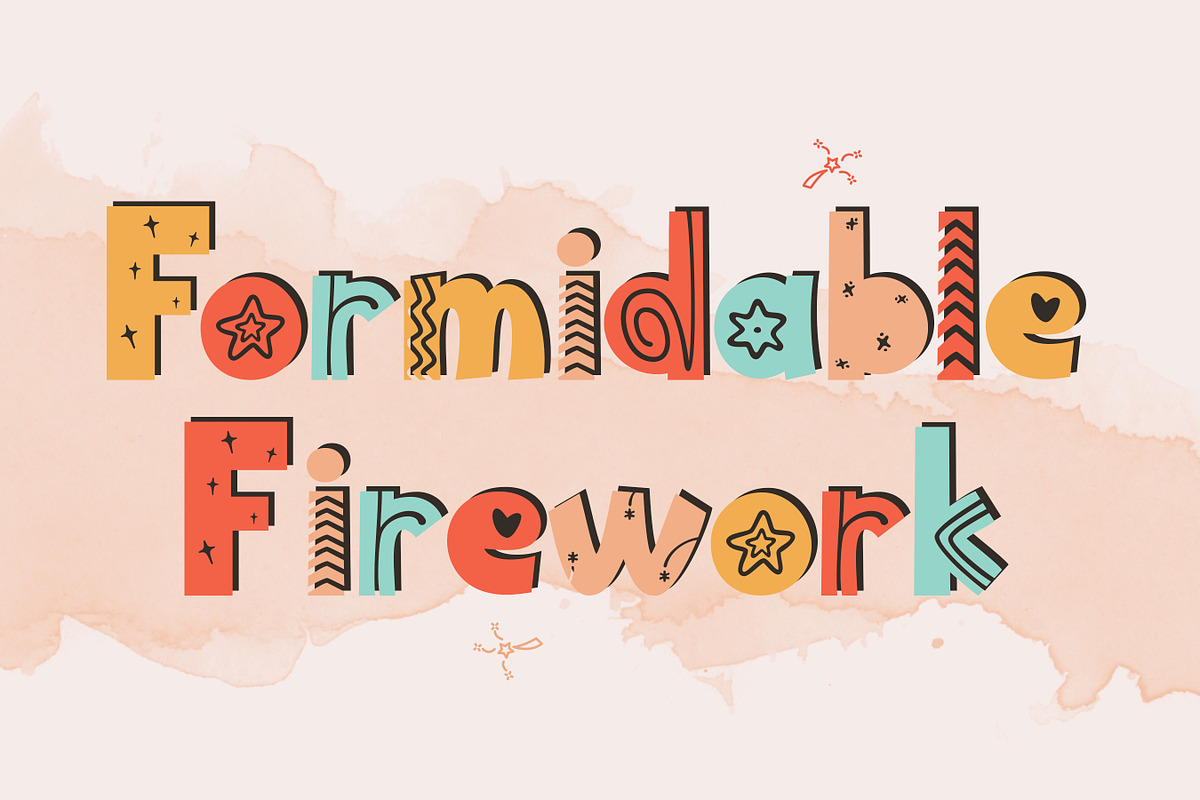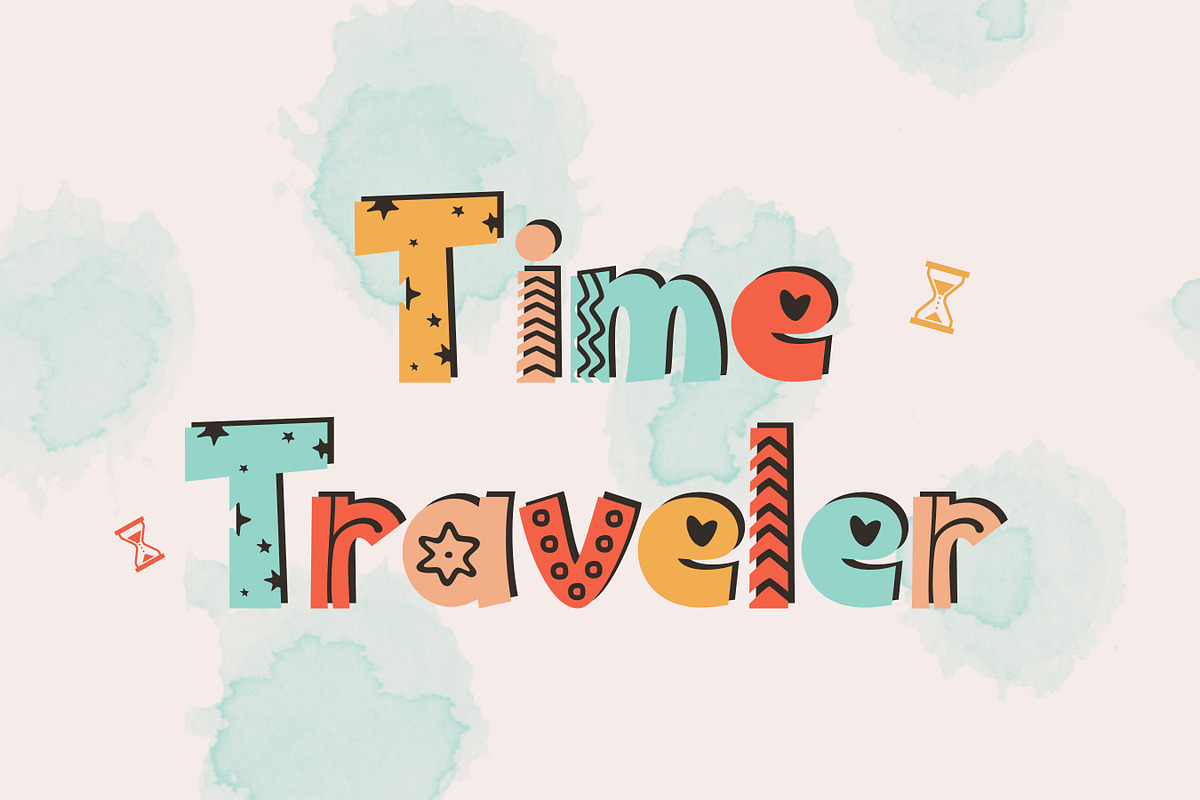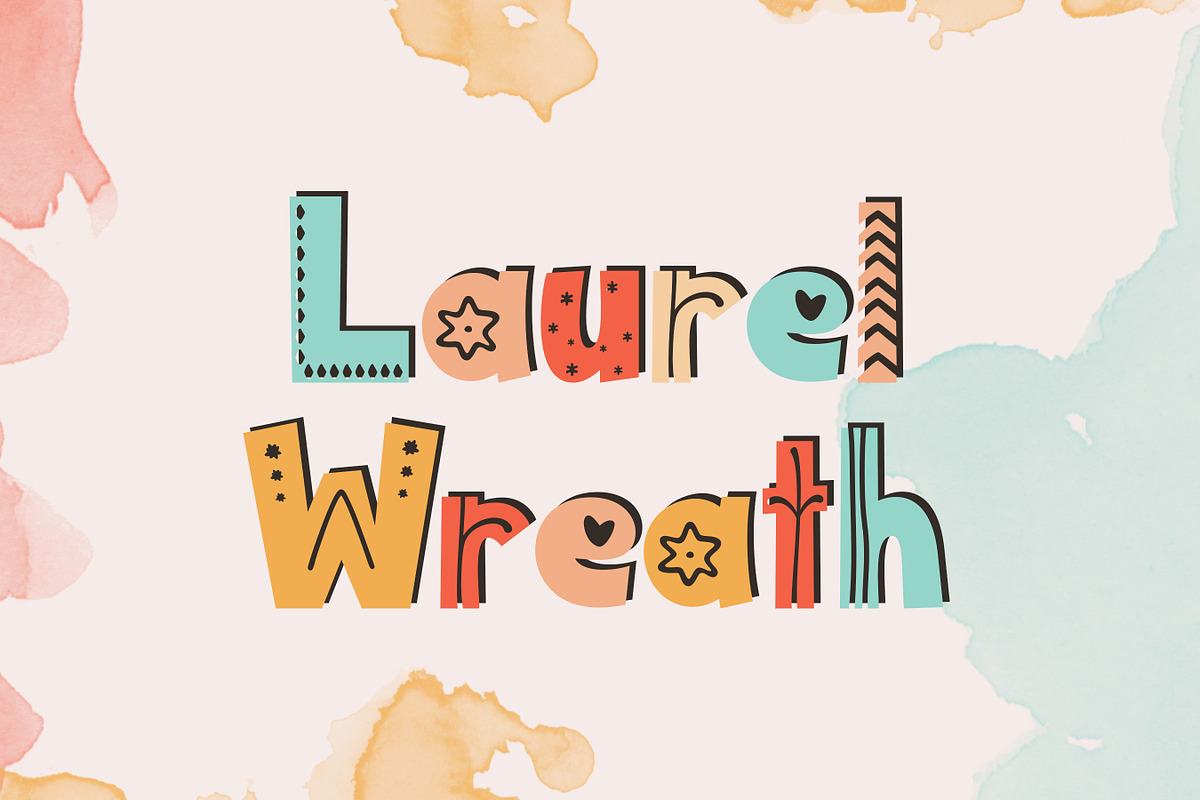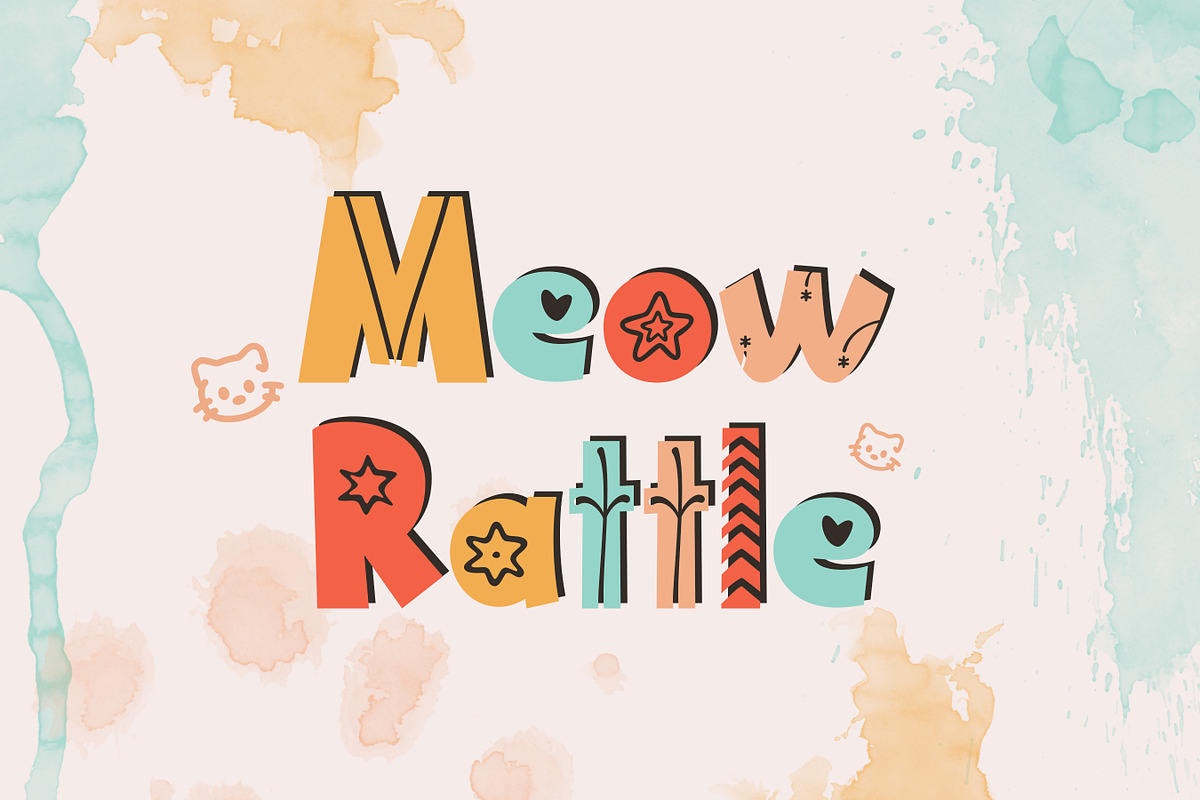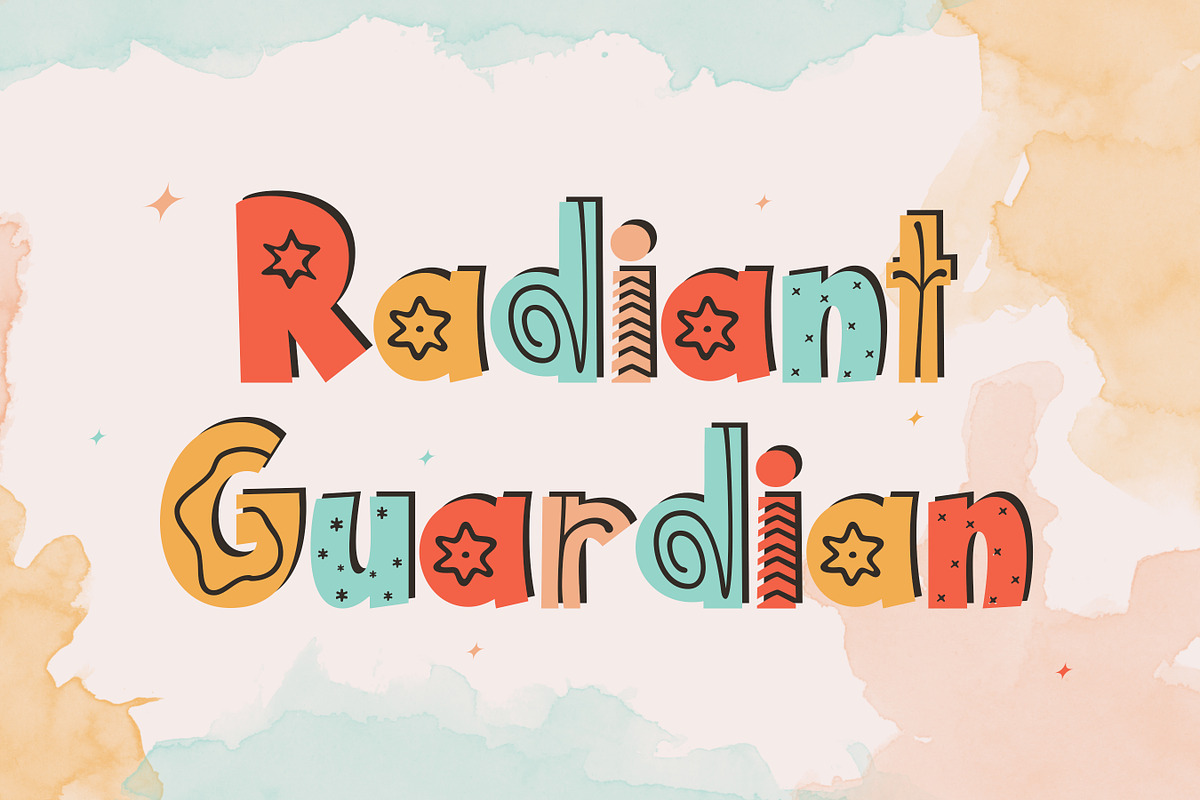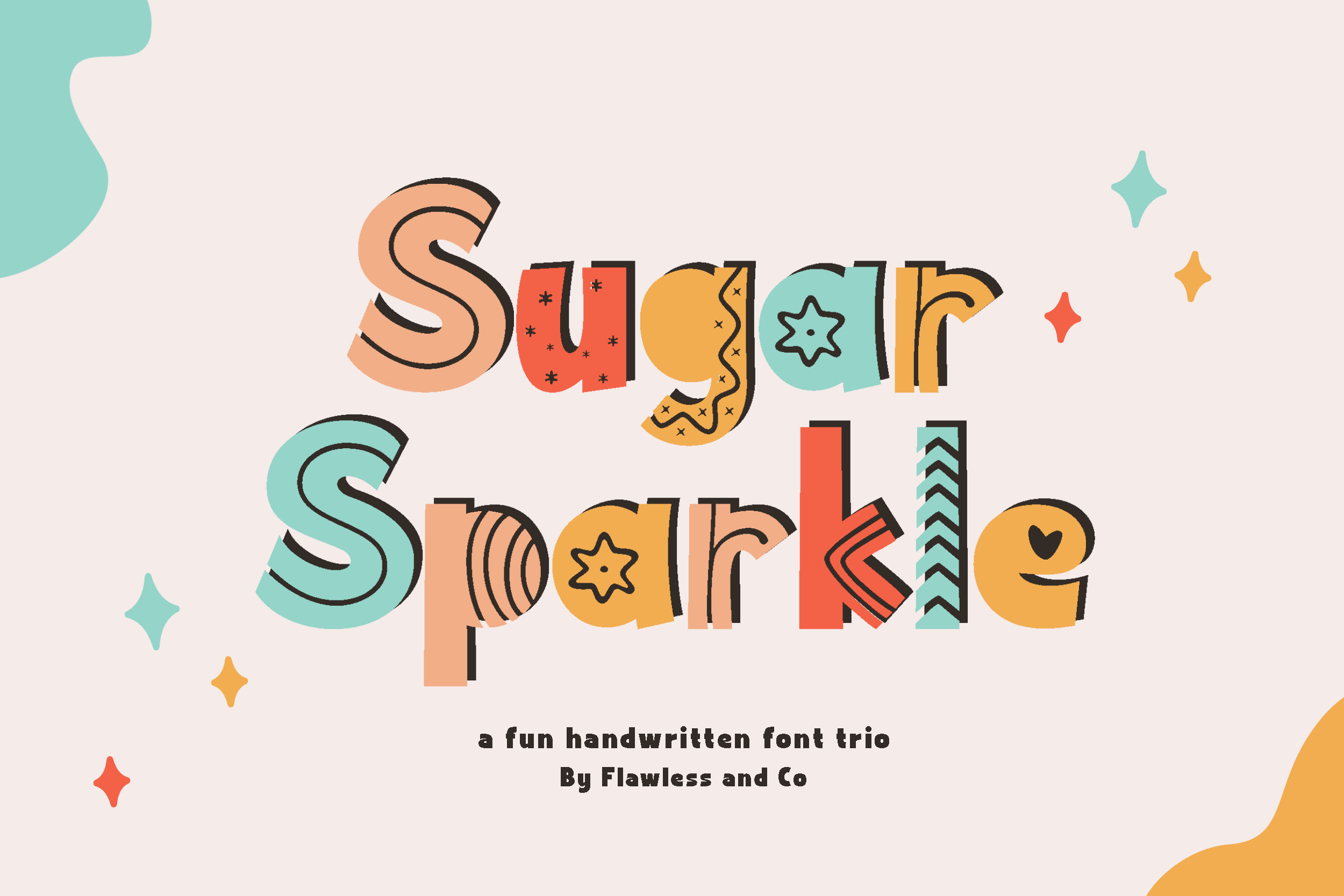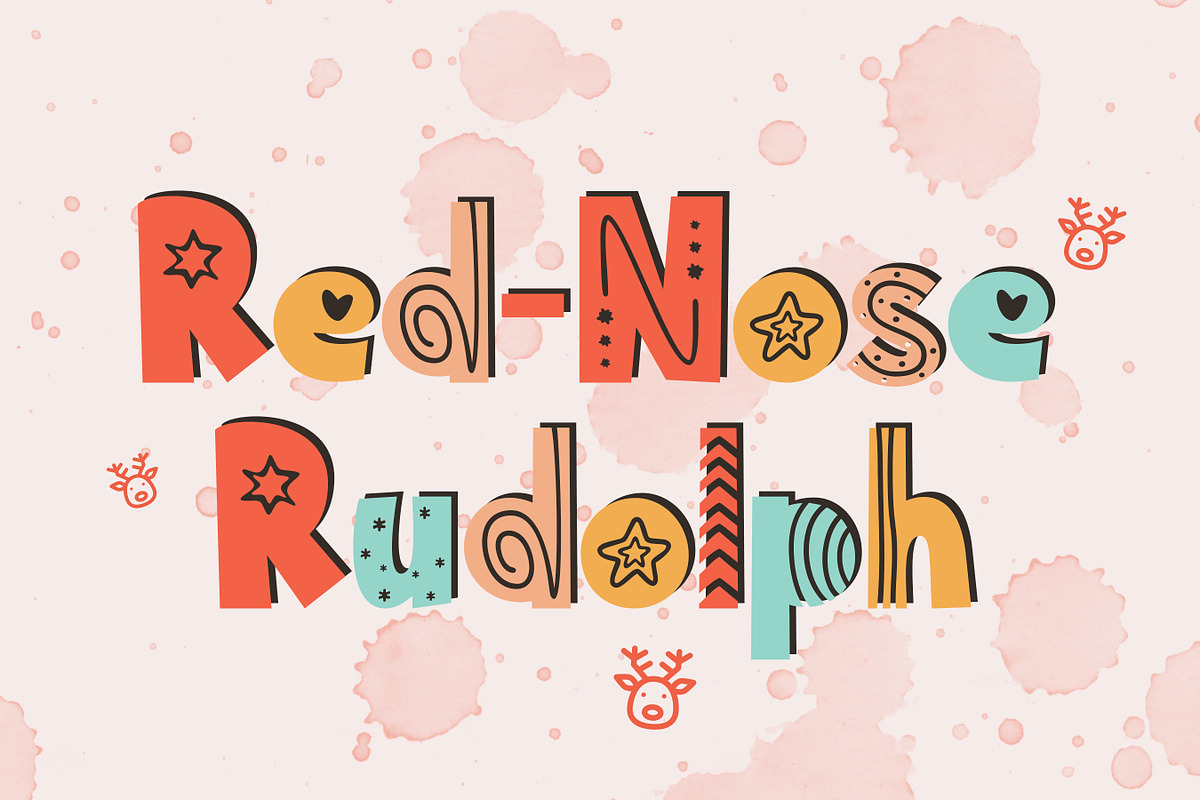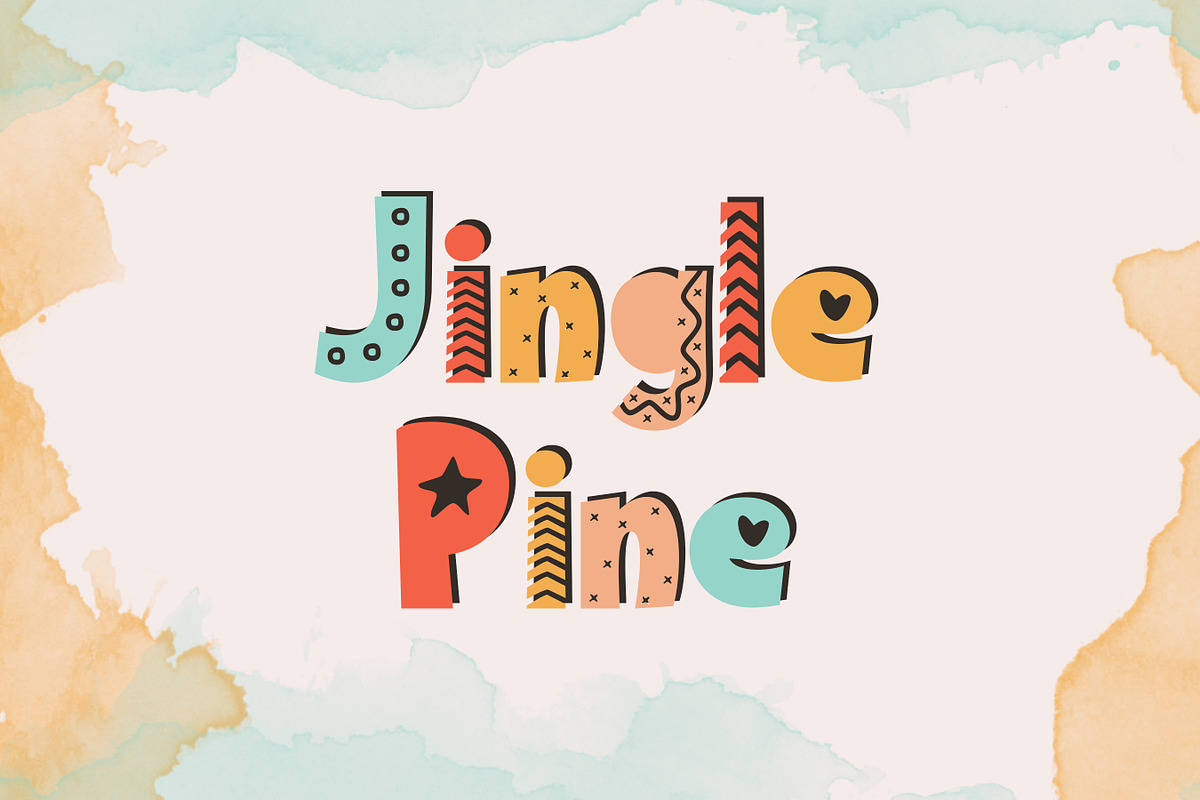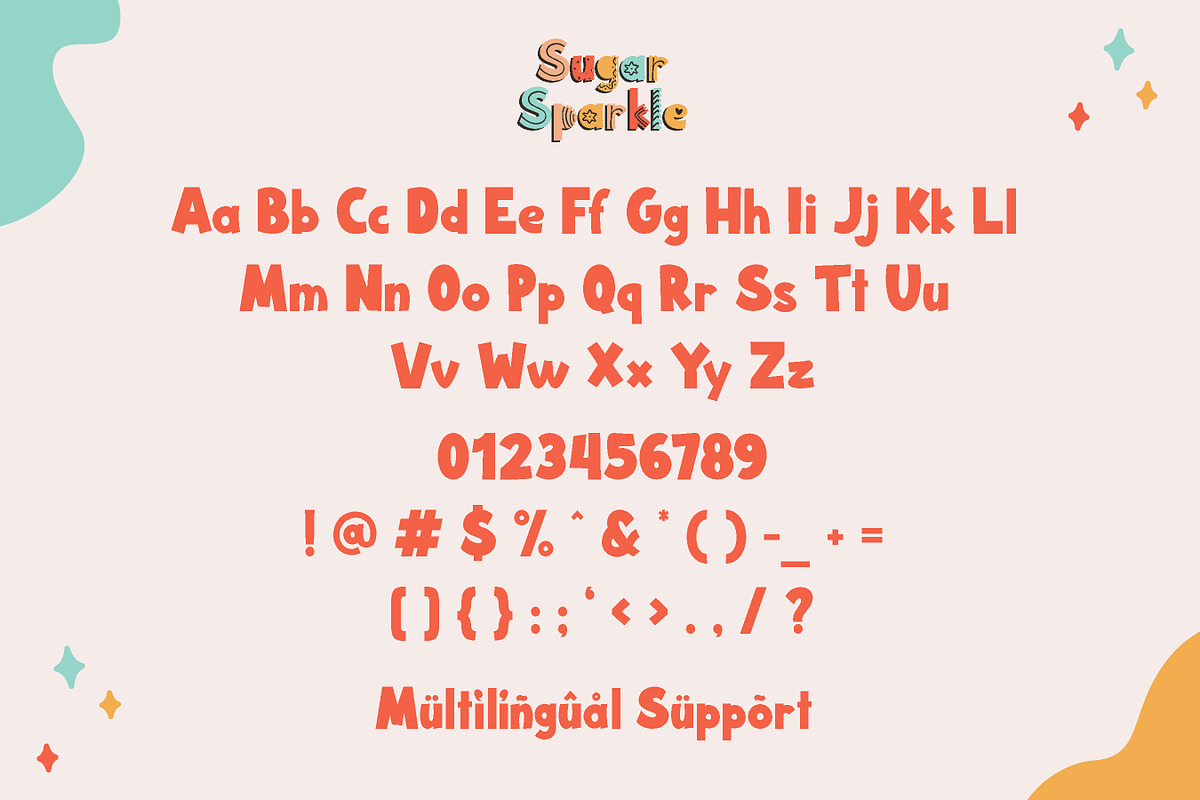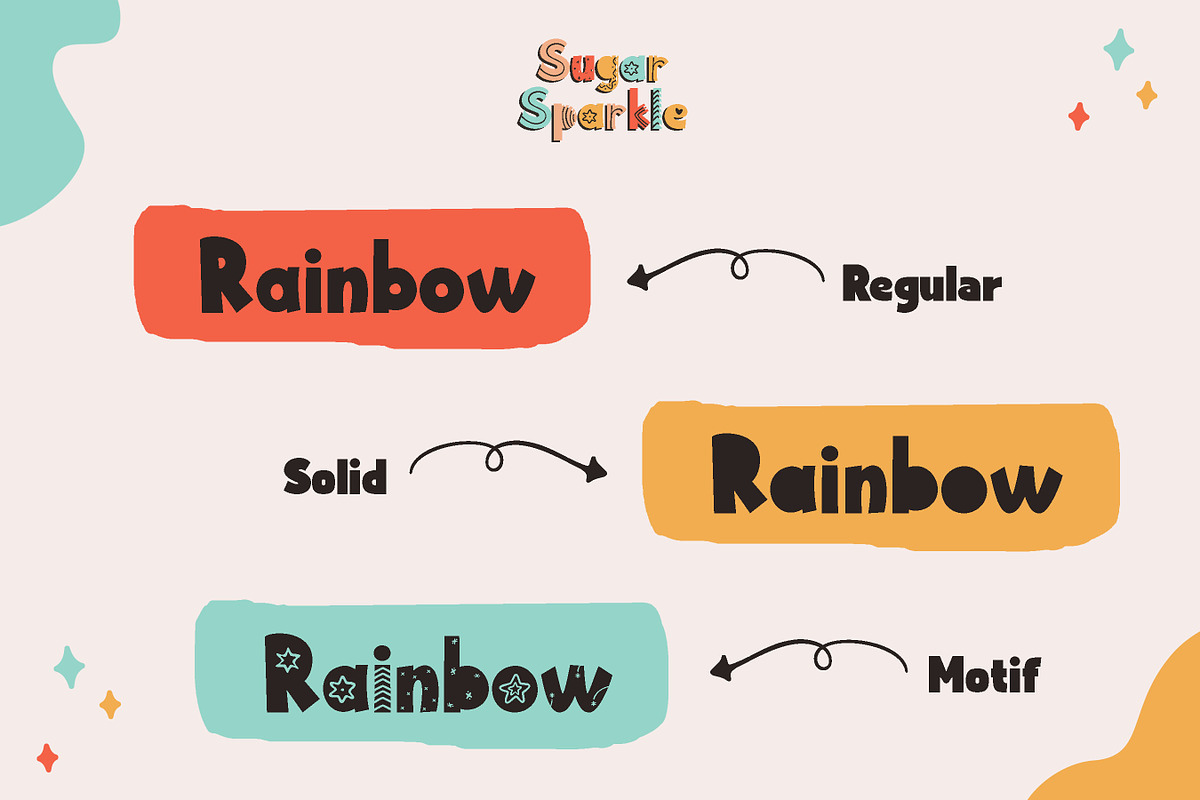
Sugar Sparkle - Fun Handwritten Font
Introducing "Sugar Sparkle," where the joy of handwritten charm meets the versatility of three distinctive styles – Regular, Solid, and Fun — adorned with patterns in fun styles that add an extra layer of delight to your designs. This delightful font is more than just a typeface; it's a celebration of creativity, offering a playful touch to your designs with a variety of patterns to sweeten the deal.